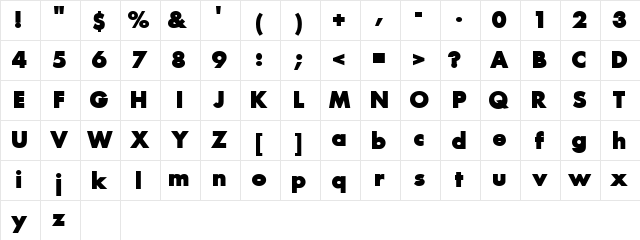
FuturaExtraBold Regular
FuturaExtraBold Family
Design Context for FuturaExtraBold
FuturaExtraBold has a distinctly futuristic character, with geometric precision and clean angles that feel at home in technology, gaming, and sci-fi contexts. Its bold stroke weight gives it real presence on the page.
Pro Tip: Try FuturaExtraBold with generous letter-spacing in UI labels and navigation - the geometric forms benefit from room to breathe.